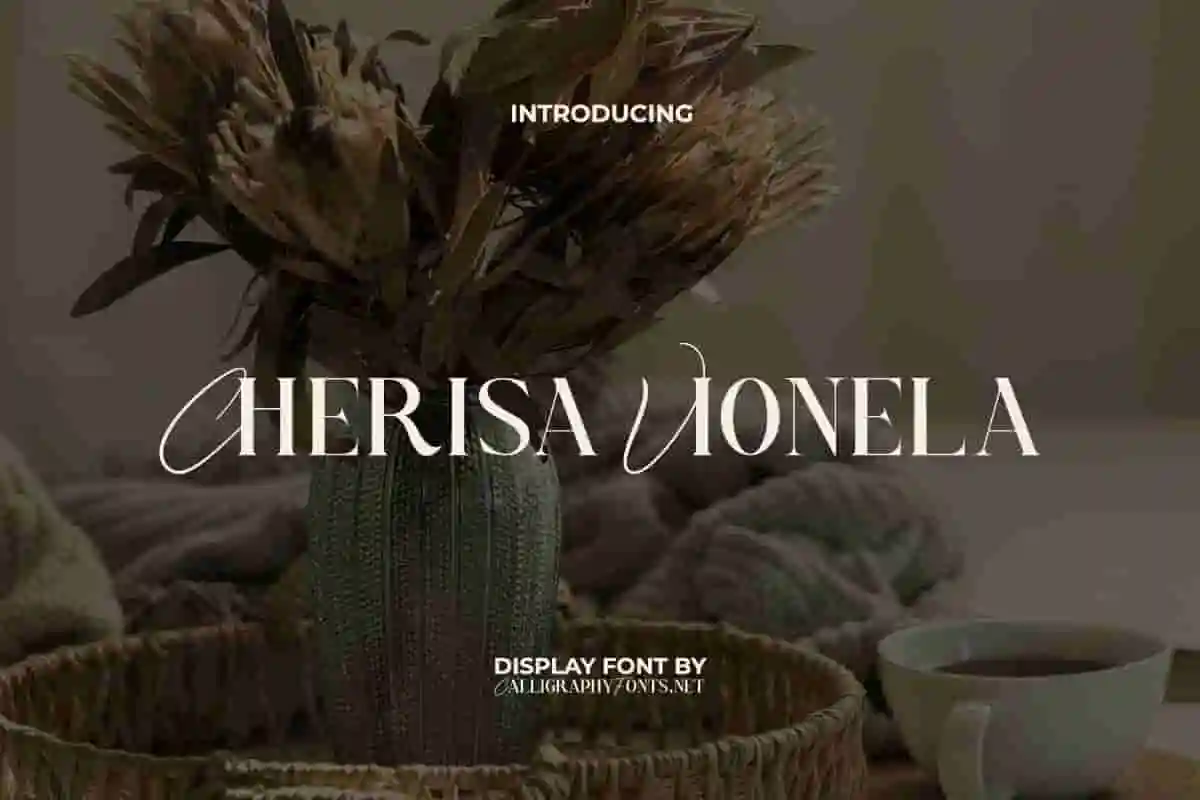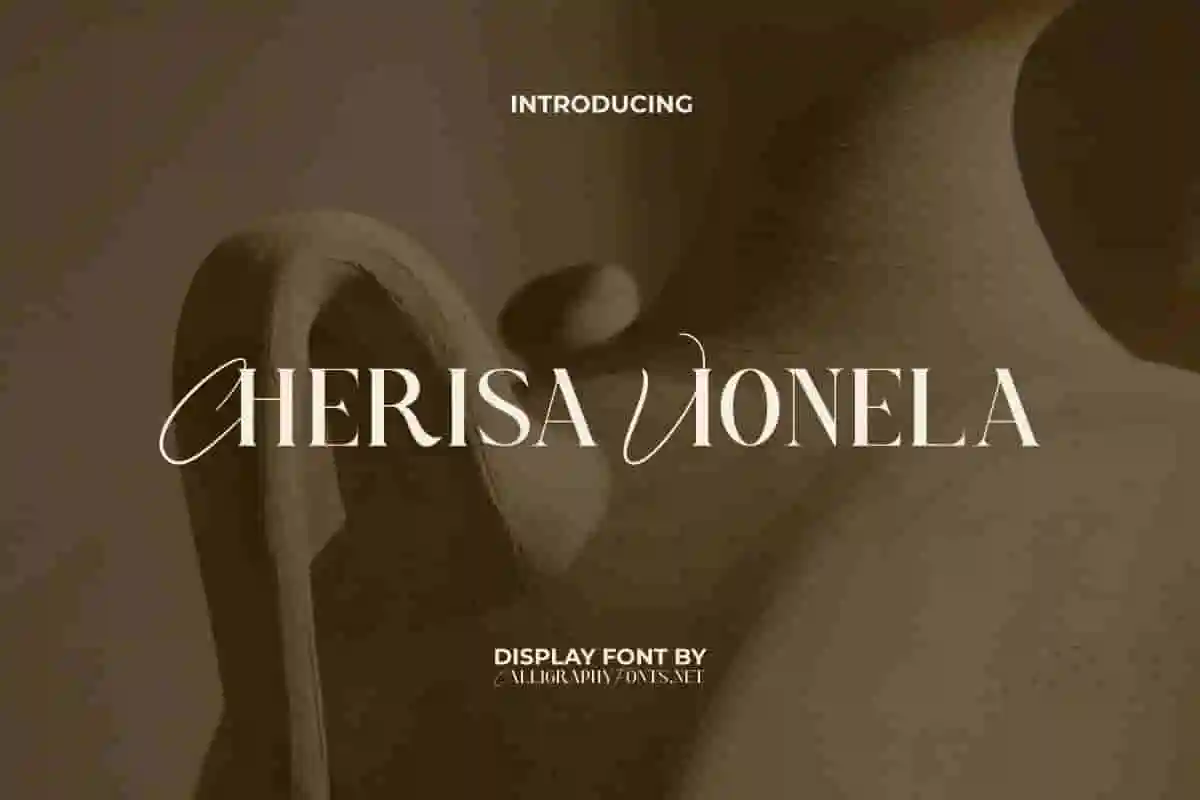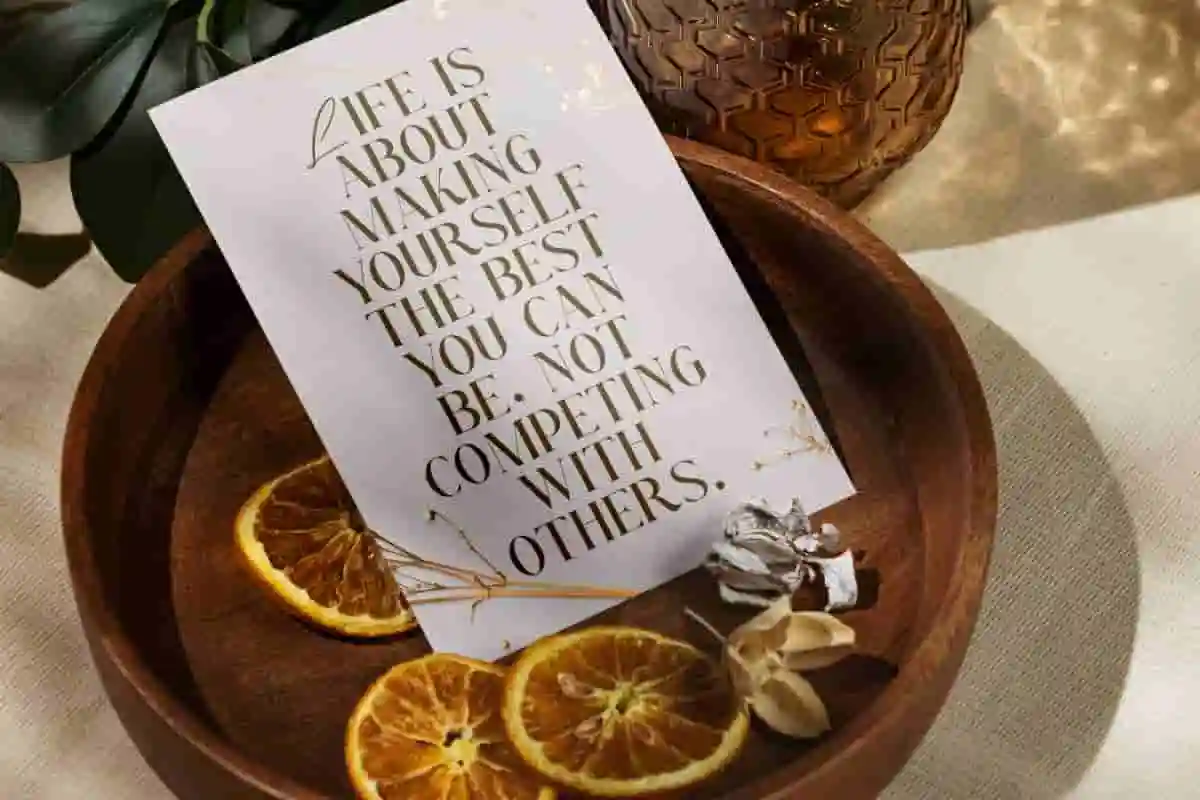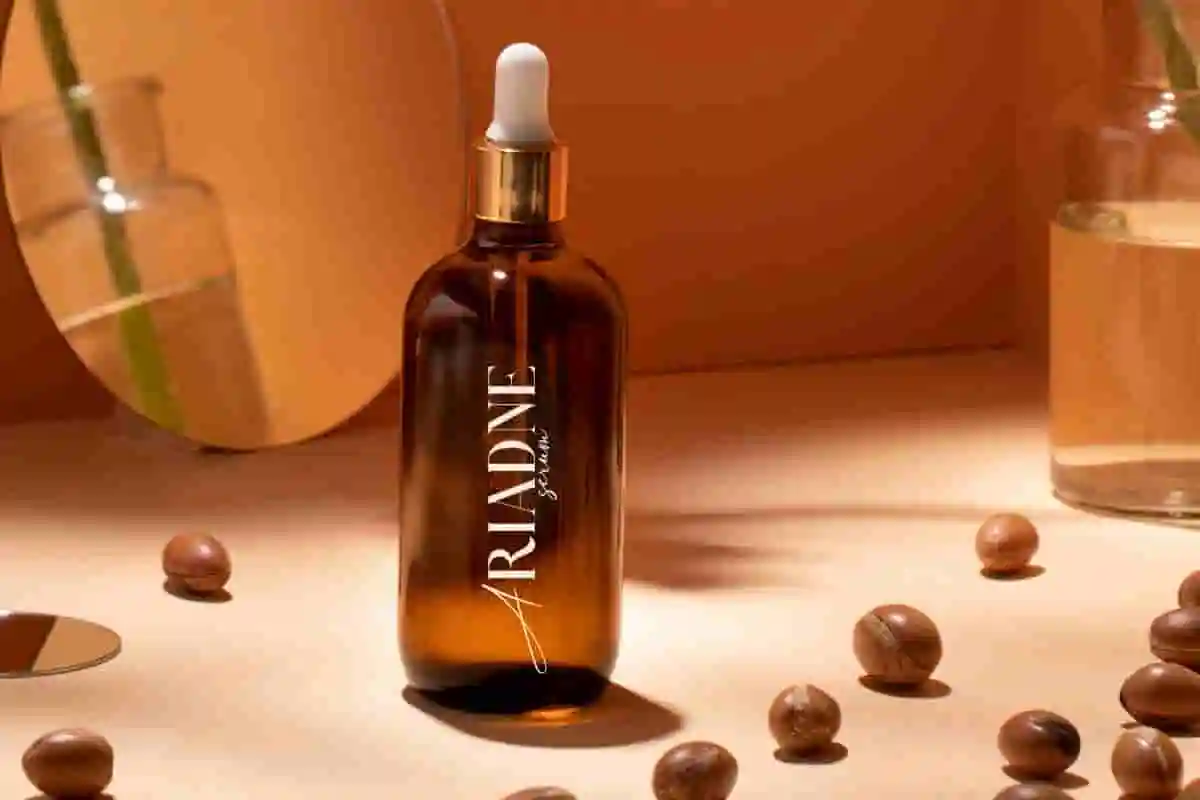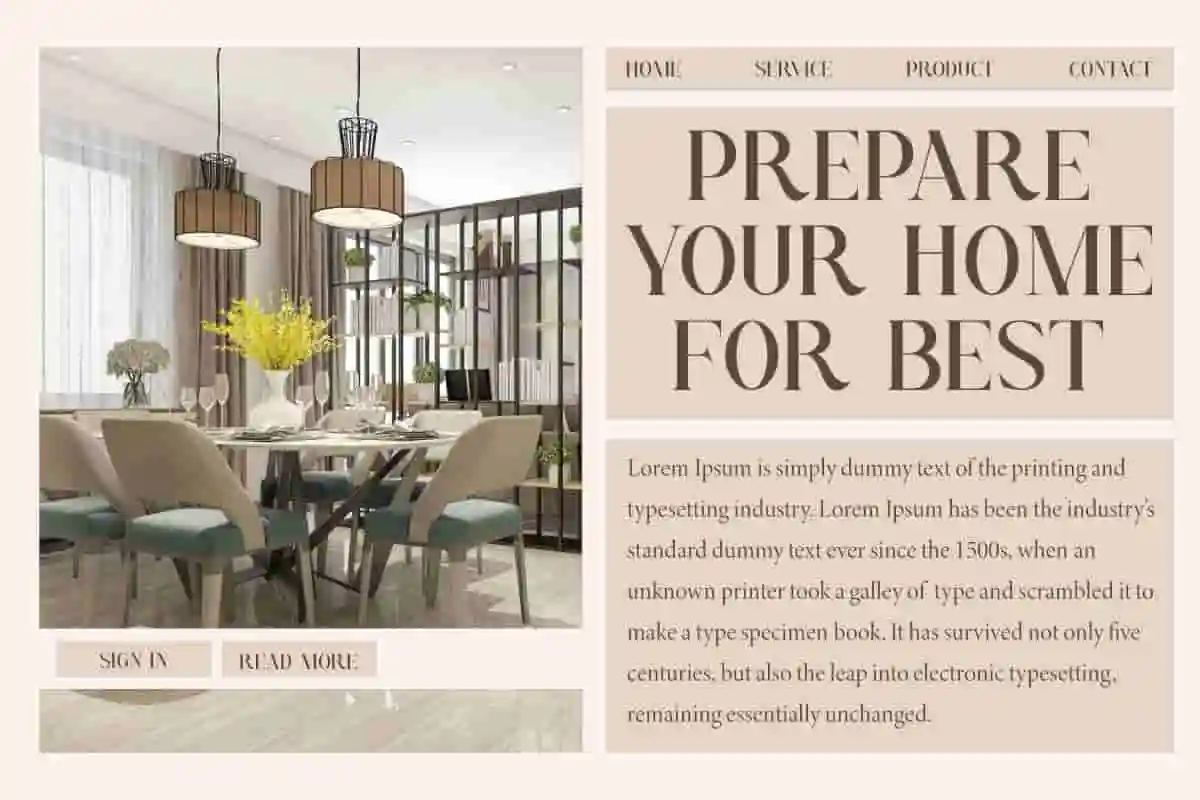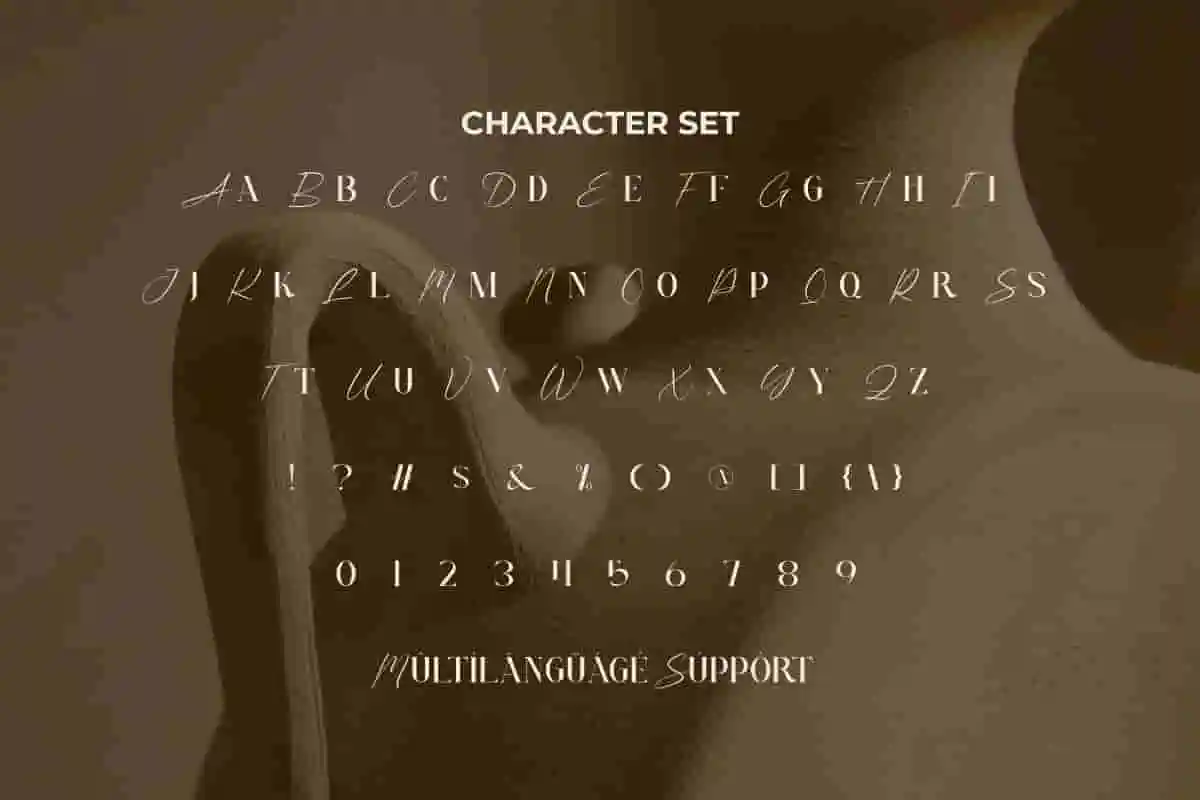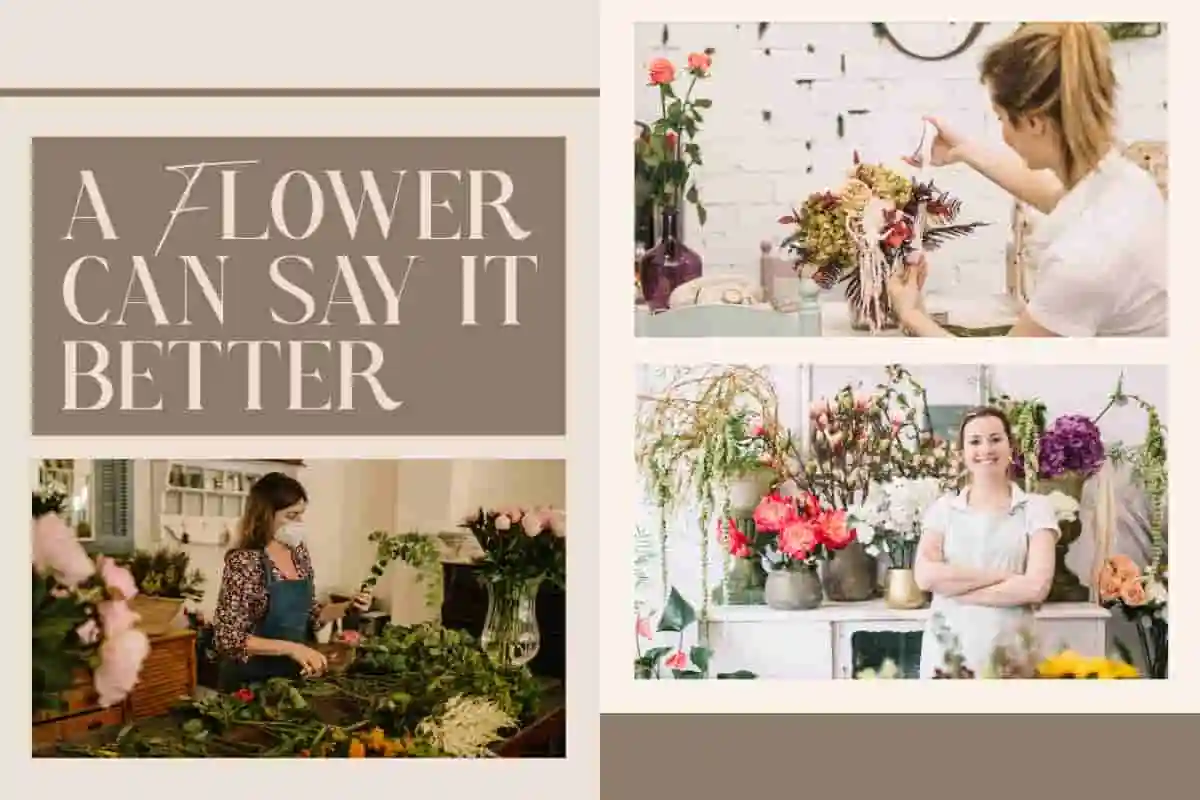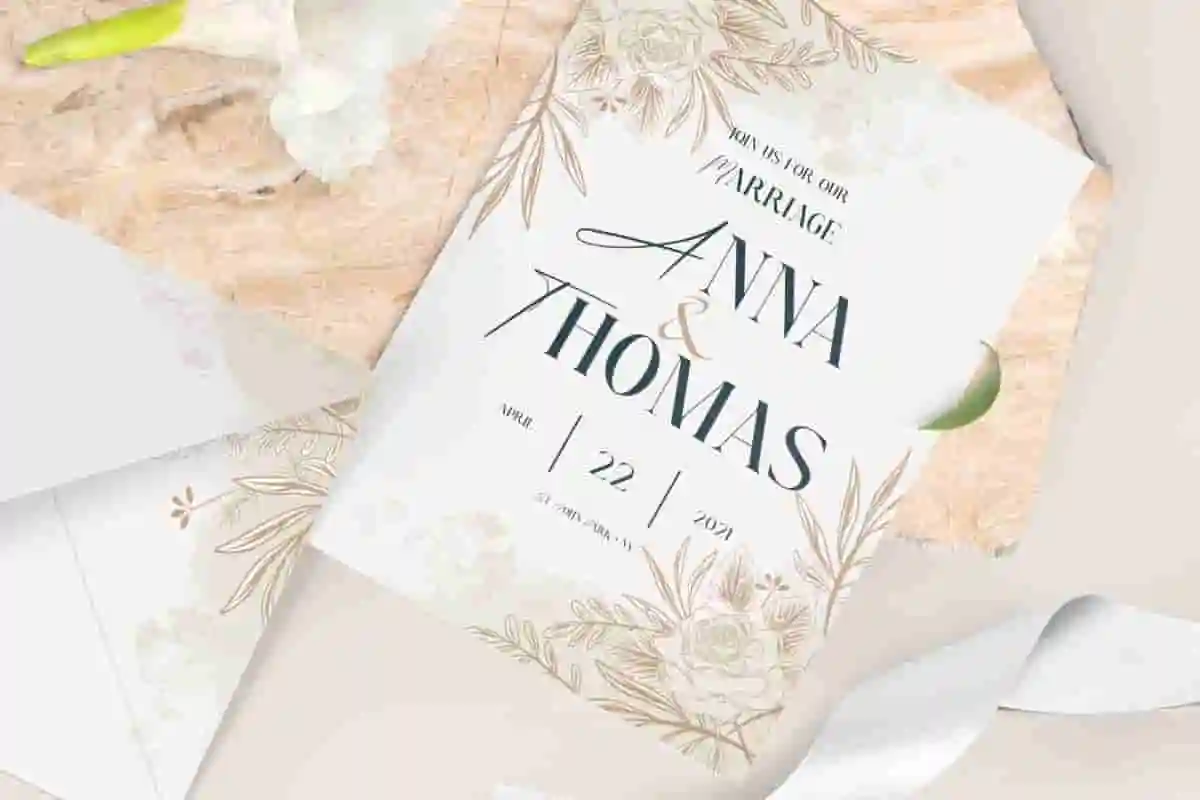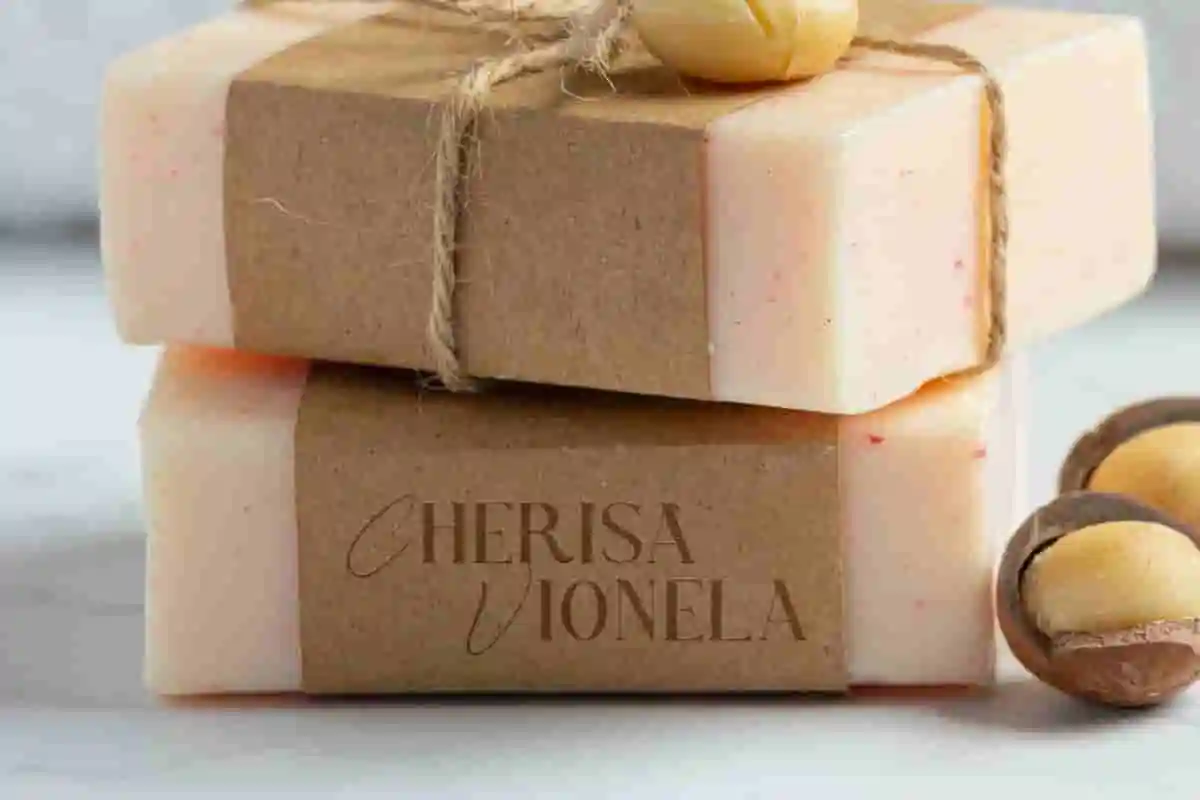
Cherisa Vionela Display Font
Cherisa Vionela Font is an experimental combination font that contains a combination of two font styles in one character set. This creates a unique looking appearance and will certainly be a perfect match for your design needs.
Cherisa Vionela Font is an elegant and refined display font perfect for creating eye-catching visuals. It combines the characteristics of a handwritten script with a serif that is both equally exotic and stylish. This font is ideal for blogs, brand logo, greeting cards, invitation, mockup, packaging design, quotes, soap sleeve, stationery, sticker, template, watermark, website, and much more.
Introducing Cherisa Vionela Display Font, a classy and confident display typeface designed to elevate your branding, editorial layouts, and creative projects with elegance and flair. Featuring high-contrast strokes, refined curves, and distinctive character shapes, this font brings a touch of luxury to every design. Perfect for fashion brands, cosmetics, lifestyle magazines, packaging, logos, and social media graphics, Cherisa Vionela adds a bold yet graceful personality to your typography.
Make every word stand out with the timeless beauty of Cherisa Vionela Display Font — a bold yet elegant typeface created to give your designs a luxurious, editorial-inspired feel. With its refined curves and sophisticated structure, this font is perfect for designers, creatives, and brands that value style and class. Cherisa Vionela is a high-contrast display serif font designed to shine in logos, fashion lookbooks, magazine headlines, packaging, and social media posts.
Introducing Cherisa Vionela Display Font, a beautifully crafted display serif that combines elegance, confidence, and style. With its clean lines, luxurious curves, and high contrast, this font is made to captivate. Whether you’re building a premium brand, designing editorial layouts, or crafting standout packaging, Cherisa Vionela delivers timeless sophistication.
- Elegant and modern
- Perfect for branding
Cherisa Vionela Font brings a different feel than usual, making this typography the most impressive. Its clean and minimalist letters display an elegant design, giving it a sophisticated and classy personality. This font is ideal for beauty product, cosmetician, event organizer, florist, graphic design, handicraft, home furniture, interior design, publisher, real estate, restaurant, wedding, writers, and much more.